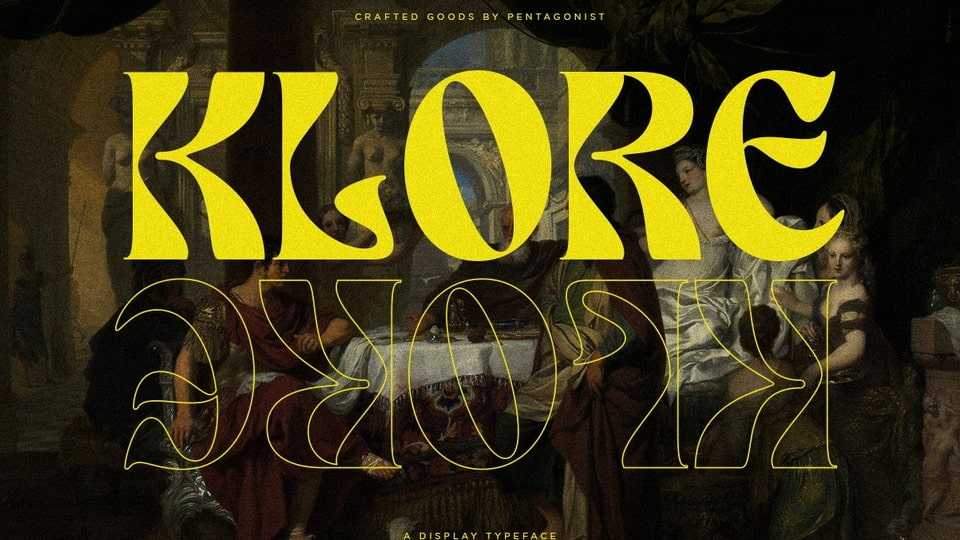
Download Klore font, a vintage display typeface inspired by retro style. Klore is perfect for adding a unique touch to logos, brand identity, or modern typographic designs.